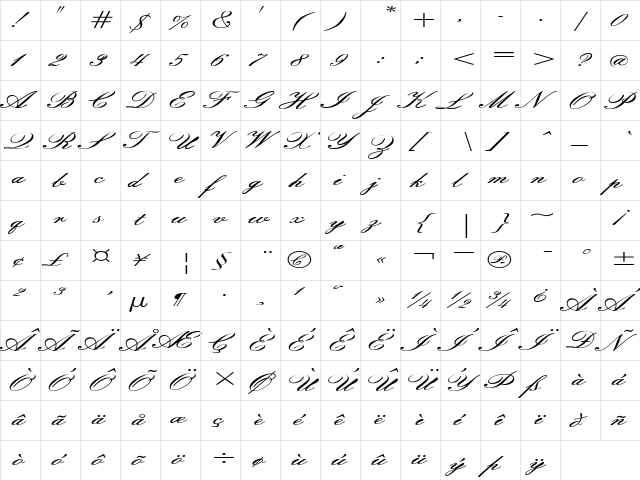
EmpireScriptExtended Regular Font Preview
EmpireScriptExtended Regular
Design Context for EmpireScriptExtended Typeface
EmpireScriptExtended flows with the natural rhythm of handwritten lettering, making it ideal for designs that call for warmth and personal expression.
Font Pairing: Combine EmpireScriptExtended with a simple geometric sans for maximum contrast — the tension between flowing curves and clean structure is a classic typographic pairing.
Pro Tip: Use EmpireScriptExtended for short runs of text — names, titles, or taglines. Extended body copy in script faces tires the eye quickly.